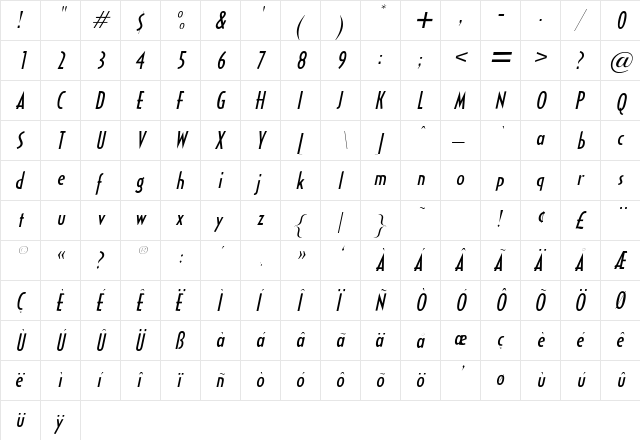
HalseyCondSSK Italic Font Preview
HalseyCondSSK Italic
Design Context for HalseyCondSSK Typeface
HalseyCondSSK takes a measured approach to typography — its balanced proportions and neutral character make it a reliable workhorse for both digital and print work. Its italic angle brings a sense of urgency and motion to the letterforms. Its narrow stance lets it pack a punch even in space-constrained designs.
Pro Tip: Use HalseyCondSSK for emphasis, pull quotes, and subheadings where its slanted energy can add rhythm to the layout.